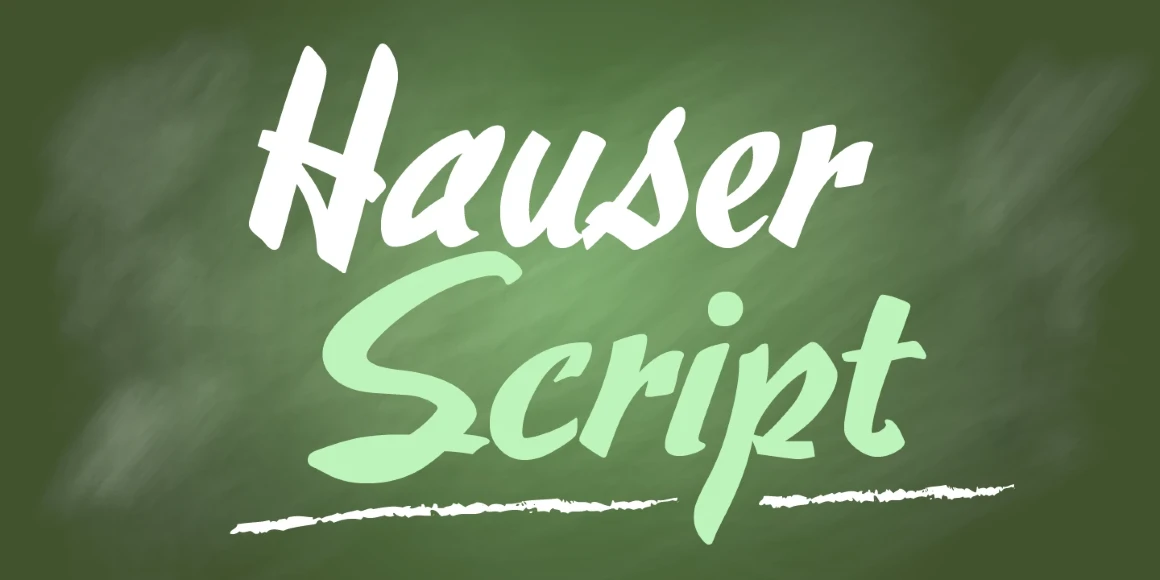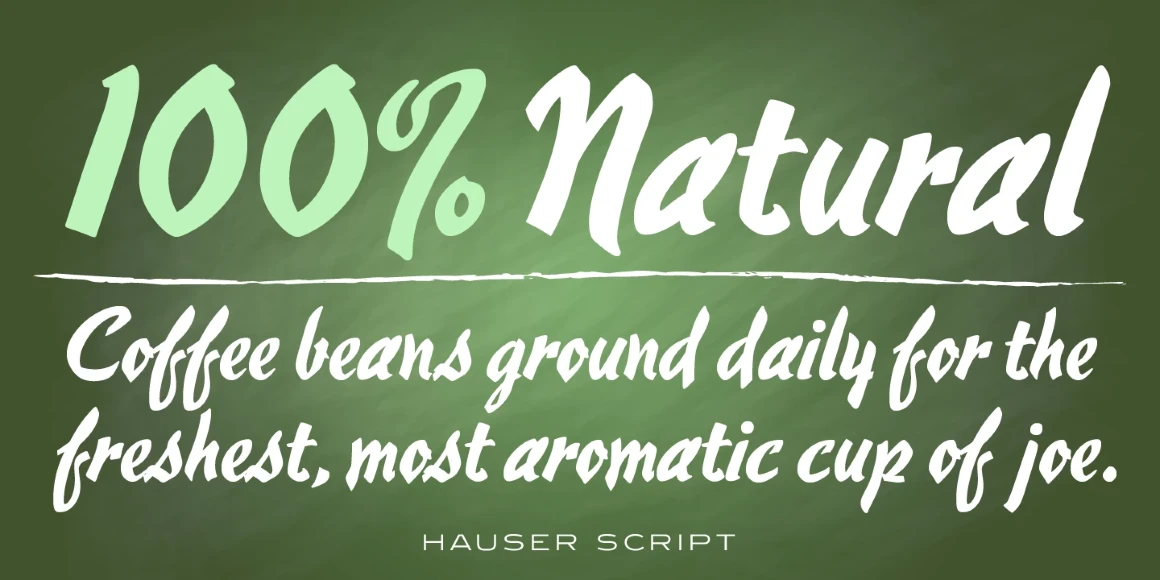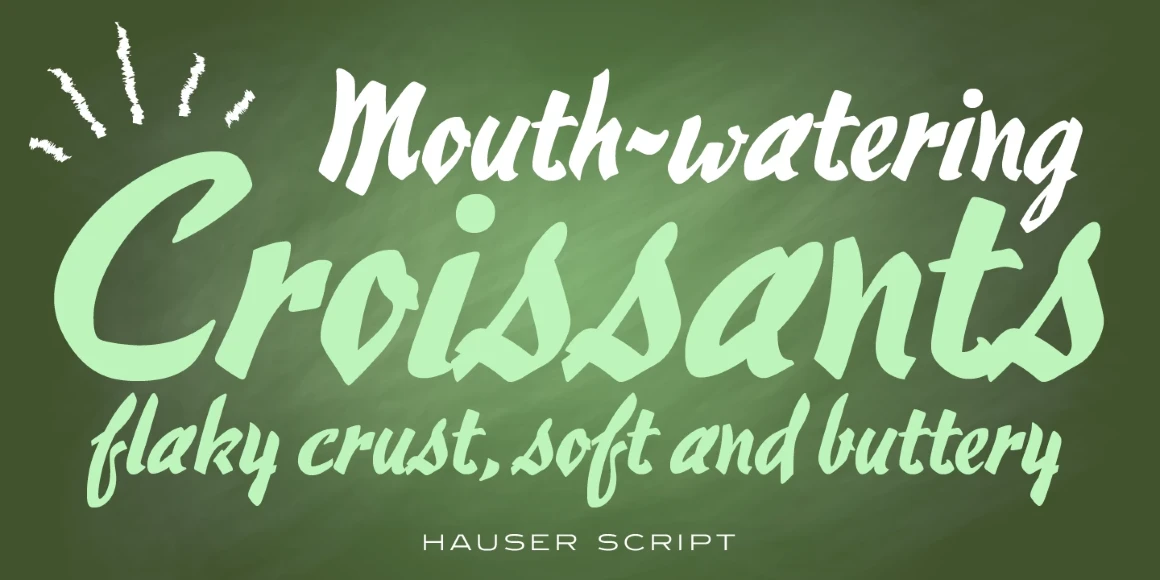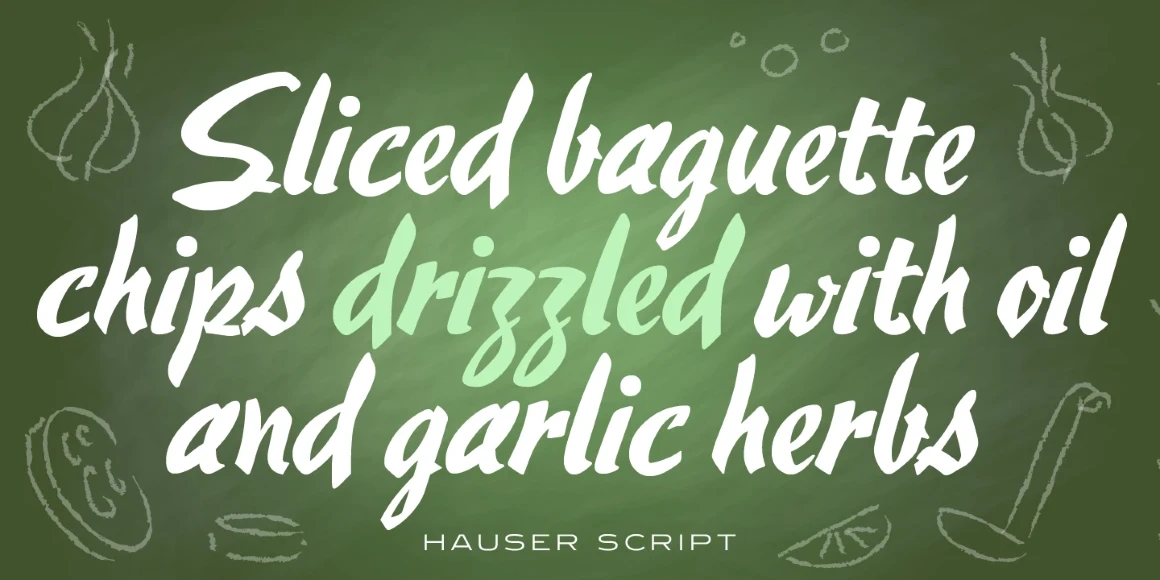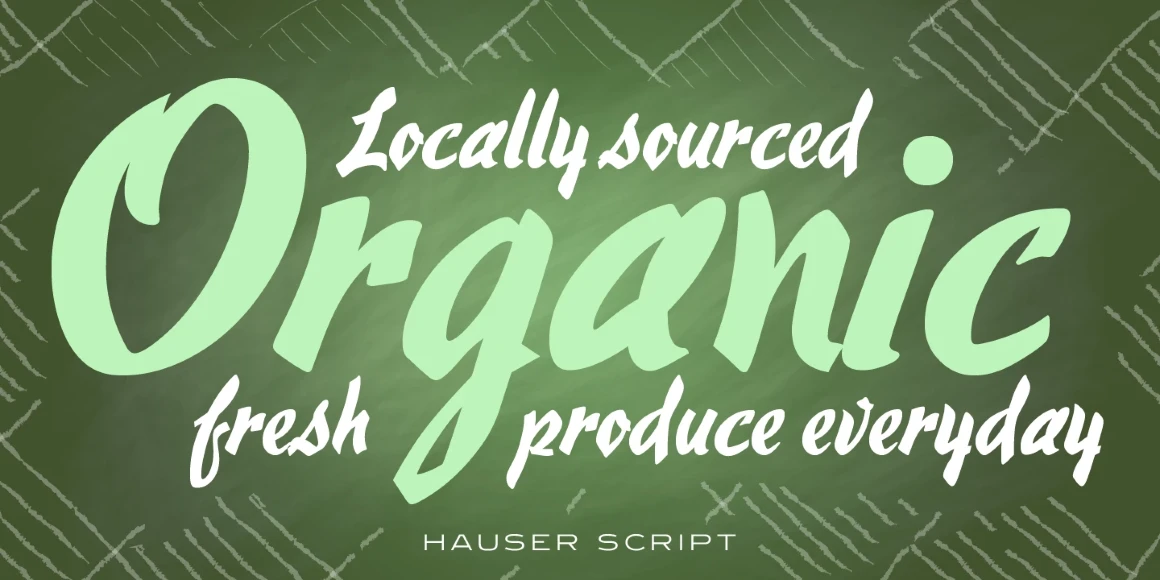
Hauser Script
Hauser Script is a freely drawn brush script typeface, exclusively licensed from the Ludlow Collection. Designed in 1936 by George Hauser for Ludlow, Hauser took advantage of the slanting matrices of the Ludlow machine to create what is possibly the most informal of American brush scripts. Steve Jackaman (ITF) created and produced a digital version of the typeface in 1998. Hauser Script has a graceful, calligraphic look that brings class to any project at display and subhead sizes.